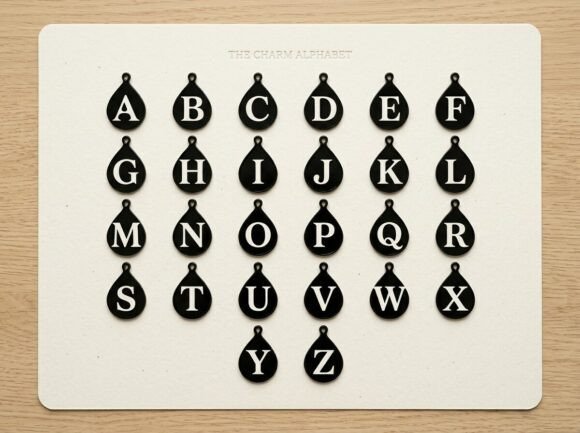
Introducing Baylor Font: A Stunning Decorative Display Font
Are you tired of using the same old fonts for your designs? Look no further than Baylor Font, a unique and artistic display font that’s sure to turn heads. This font is designed to be the center of attention, featuring a strong visual personality and unique artistic elements that will set your designs apart from the rest.
What Makes Baylor Font Special?
Baylor Font is a versatile decorative display font that’s perfect for creators who want to add a touch of elegance and sophistication to their designs. With its bold and eye-catching design, this font is ideal for use in a variety of applications, including:
- Bold Headlines: Use Baylor Font to create attention-grabbing headlines that will draw your audience in.
- Artistic Logos: Create a lasting impression with a custom logo that showcases your brand’s personality.
- Creative Packaging: Add a touch of luxury to your product packaging with Baylor Font’s unique and artistic design.
⚠️ IMPORTANT NOTE BEFORE PURCHASE: Baylor Font is an ALL-CAPS (Uppercase Only) display typeface. This means that it does not include lowercase letters. It is specifically designed for high-impact headlines, logos, and decorative initials where every letter is a work of art.
Why Choose Baylor Font?
There are many reasons why Baylor Font stands out from the rest. Here are just a few:
- Unique Design: Baylor Font features a unique and artistic design that’s sure to turn heads.
- High-Impact: This font is designed to make a statement, making it perfect for headlines, logos, and other high-impact applications.
- Professional and Polished: Despite its bold and artistic design, Baylor Font maintains a professional and polished finish.
- Versatile: Baylor Font can be used in a variety of applications, from bold headlines to artistic logos and creative packaging.
Tips for Using Baylor Font
Here are a few tips for getting the most out of Baylor Font:
- Use it sparingly: Baylor Font is designed to make a statement, so use it sparingly to avoid overwhelming your design.
- Pair it with a simple font: Pair Baylor Font with a simple font to create contrast and make your design more visually appealing.
- Experiment with different sizes: Baylor Font looks great in a variety of sizes, so experiment with different sizes to find the one that works best for your design.